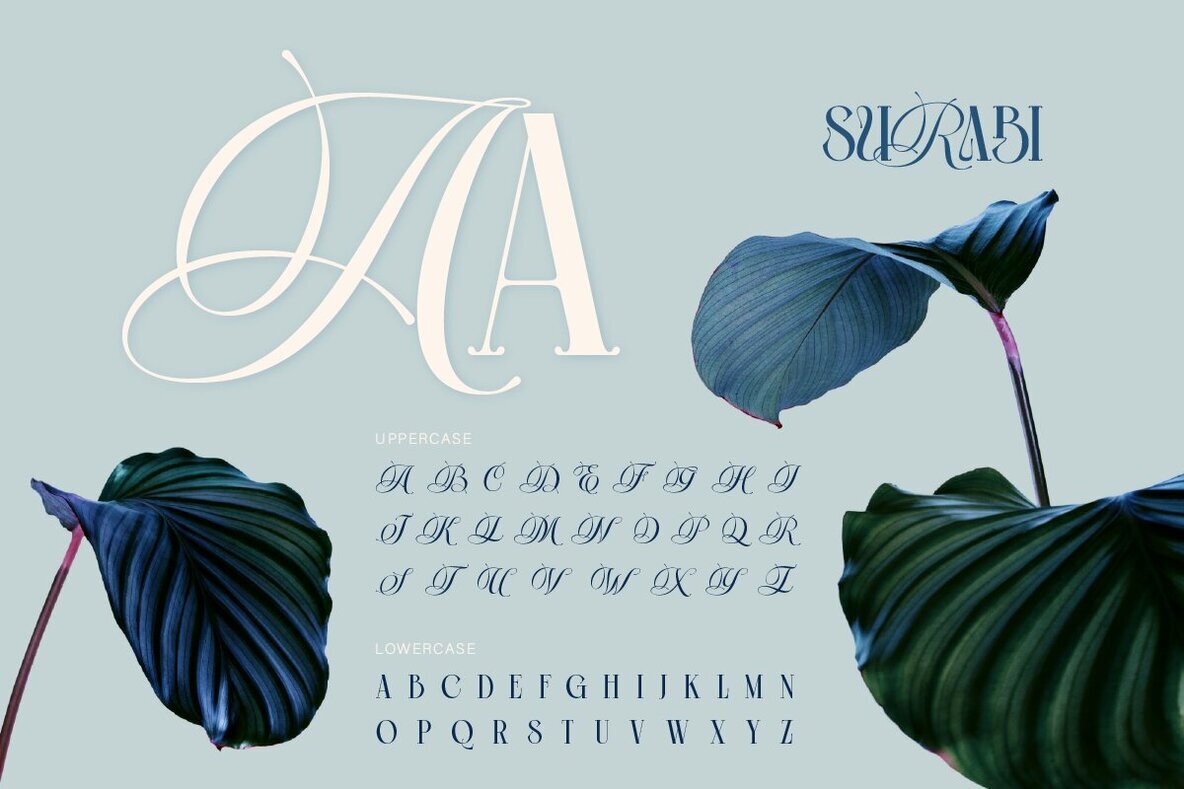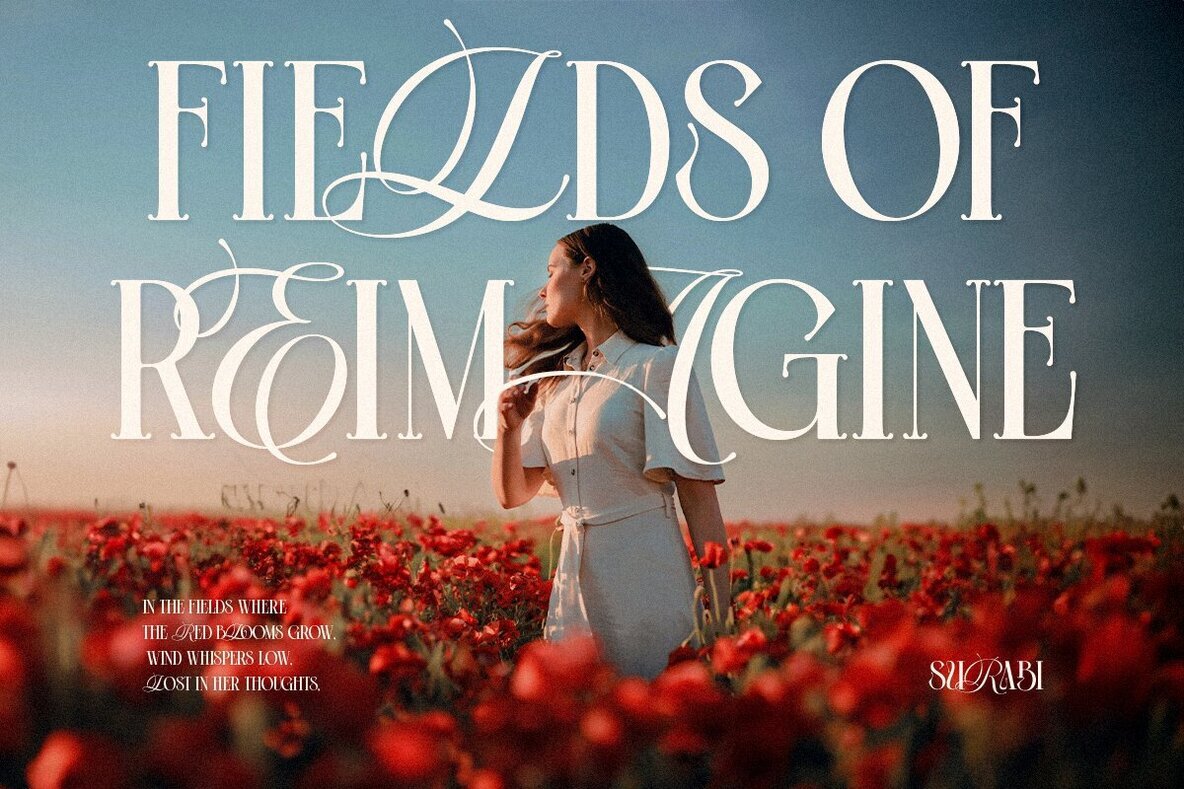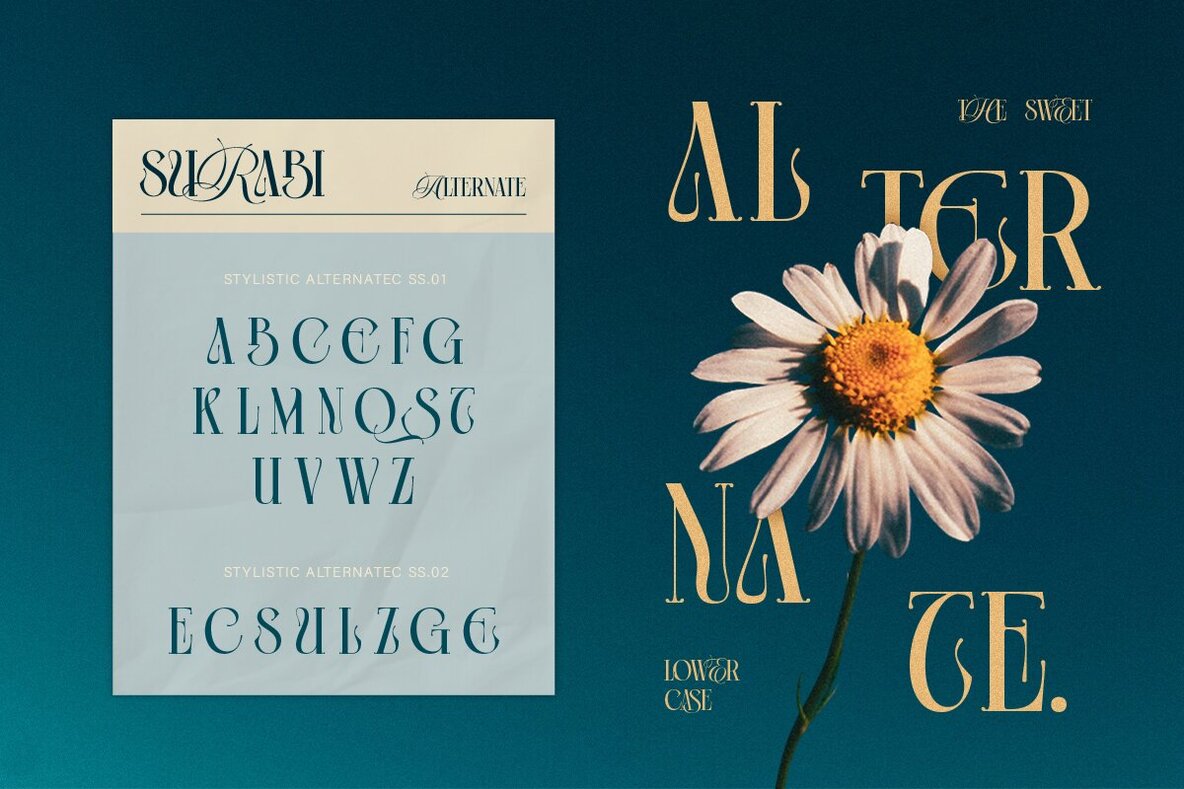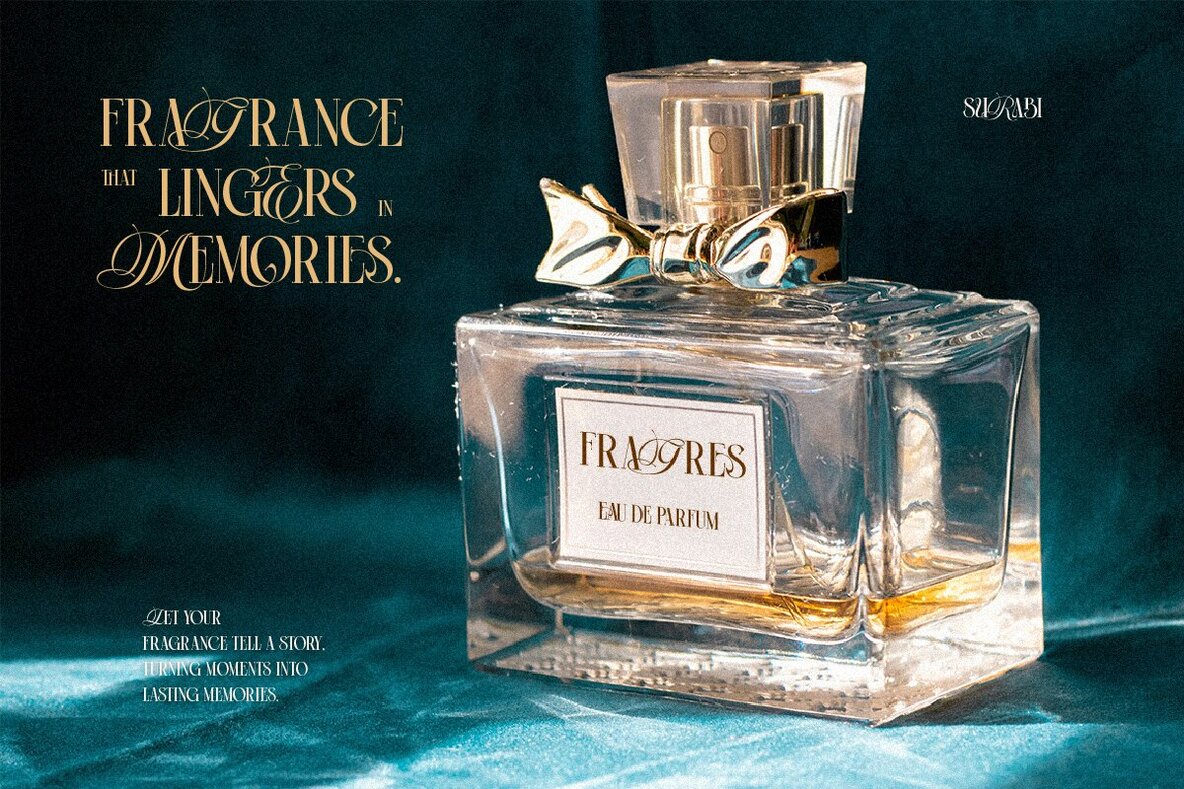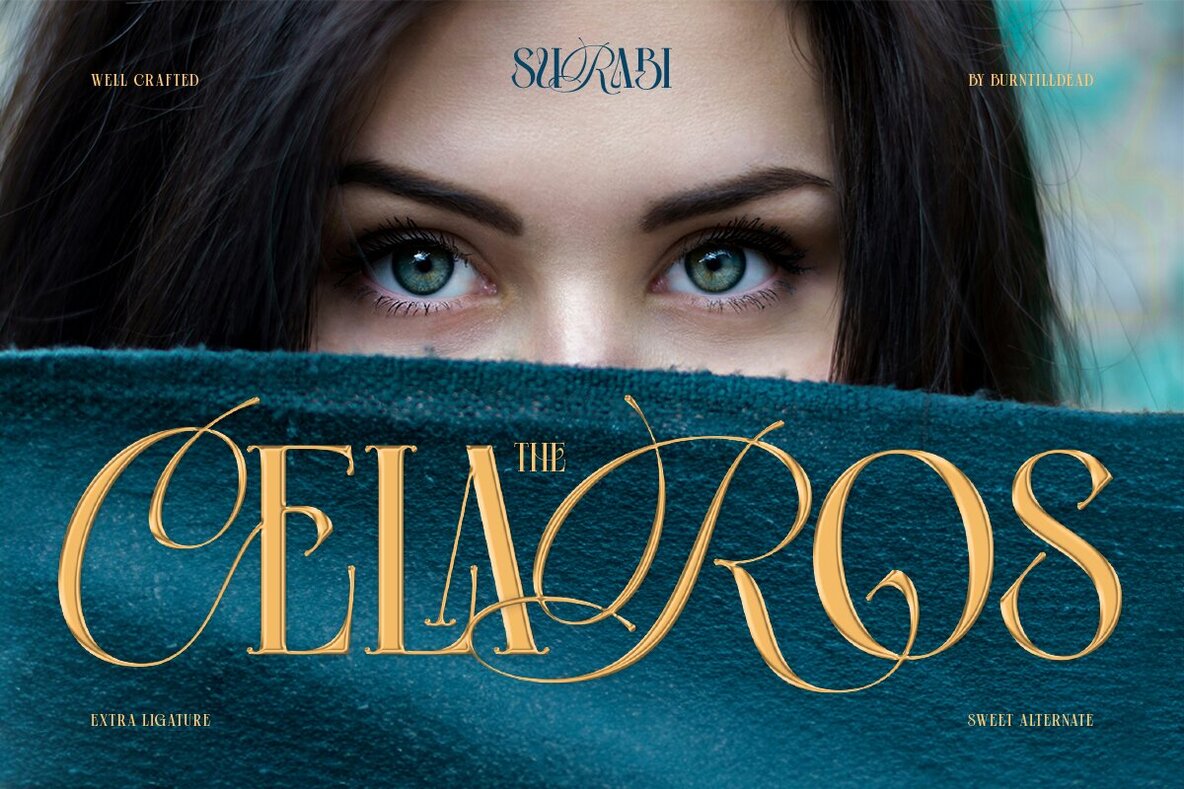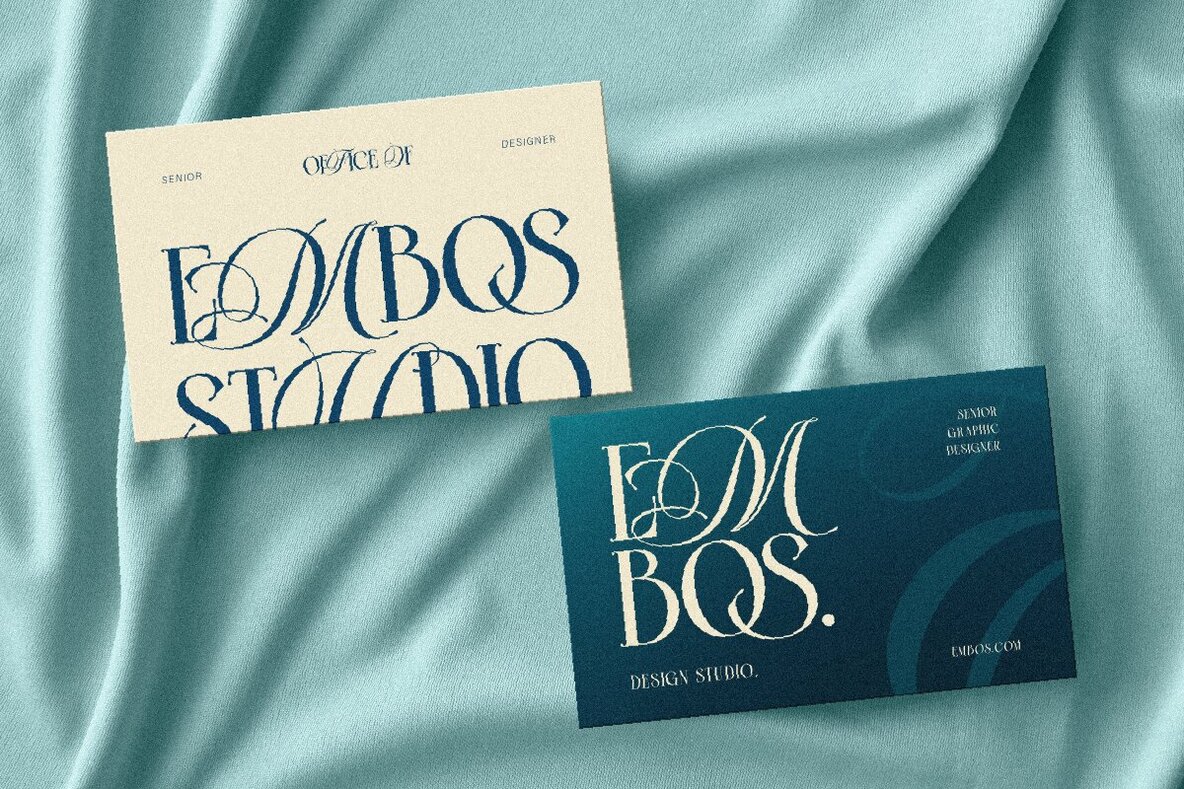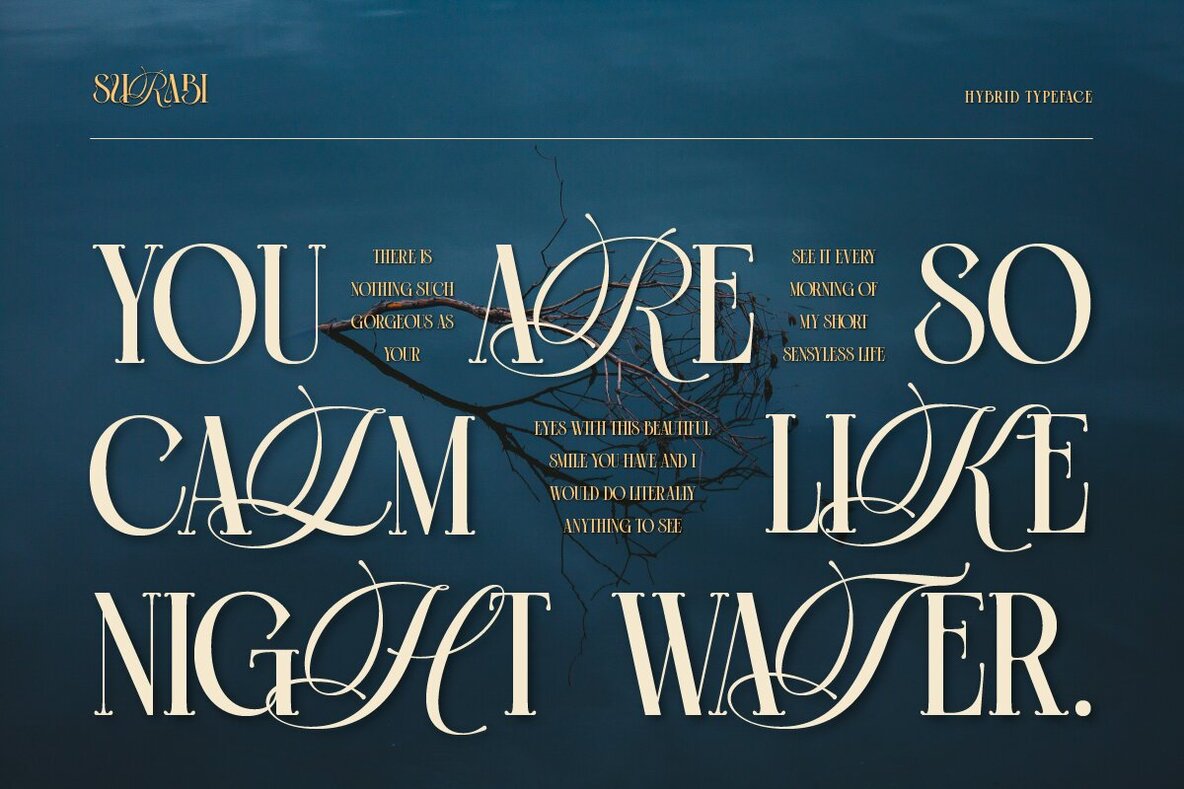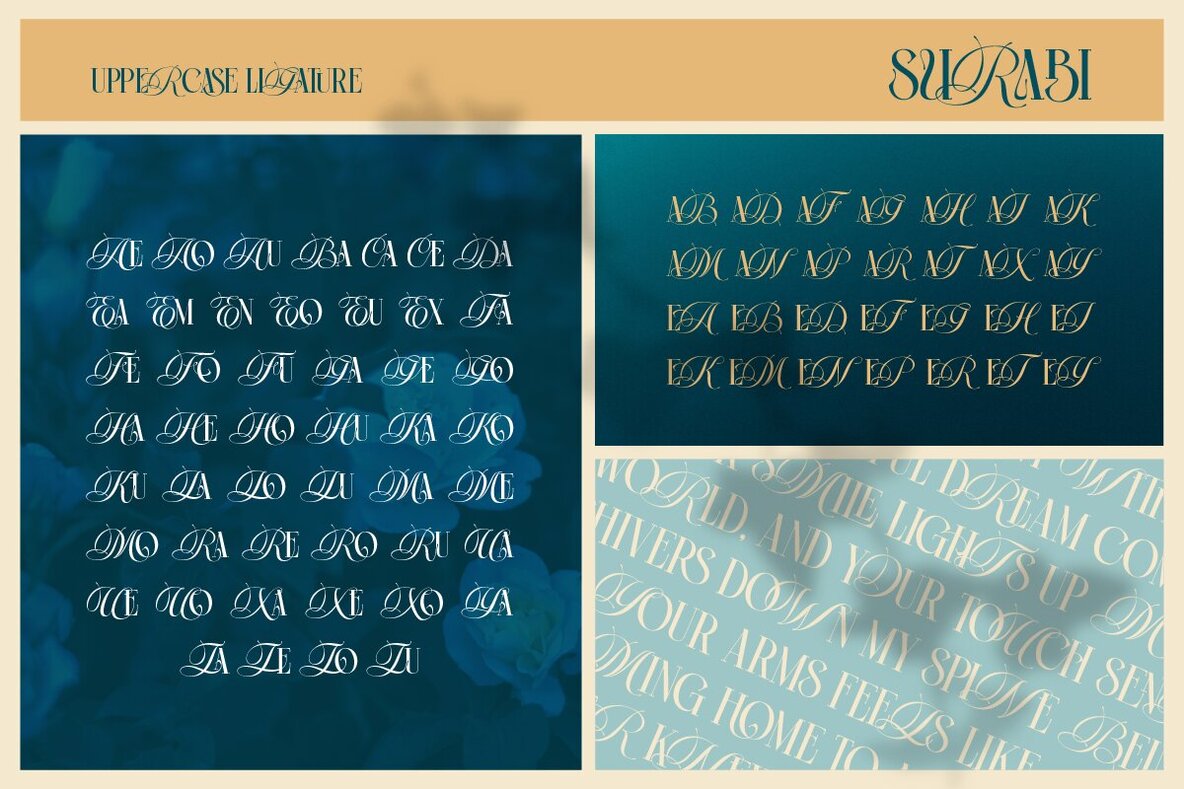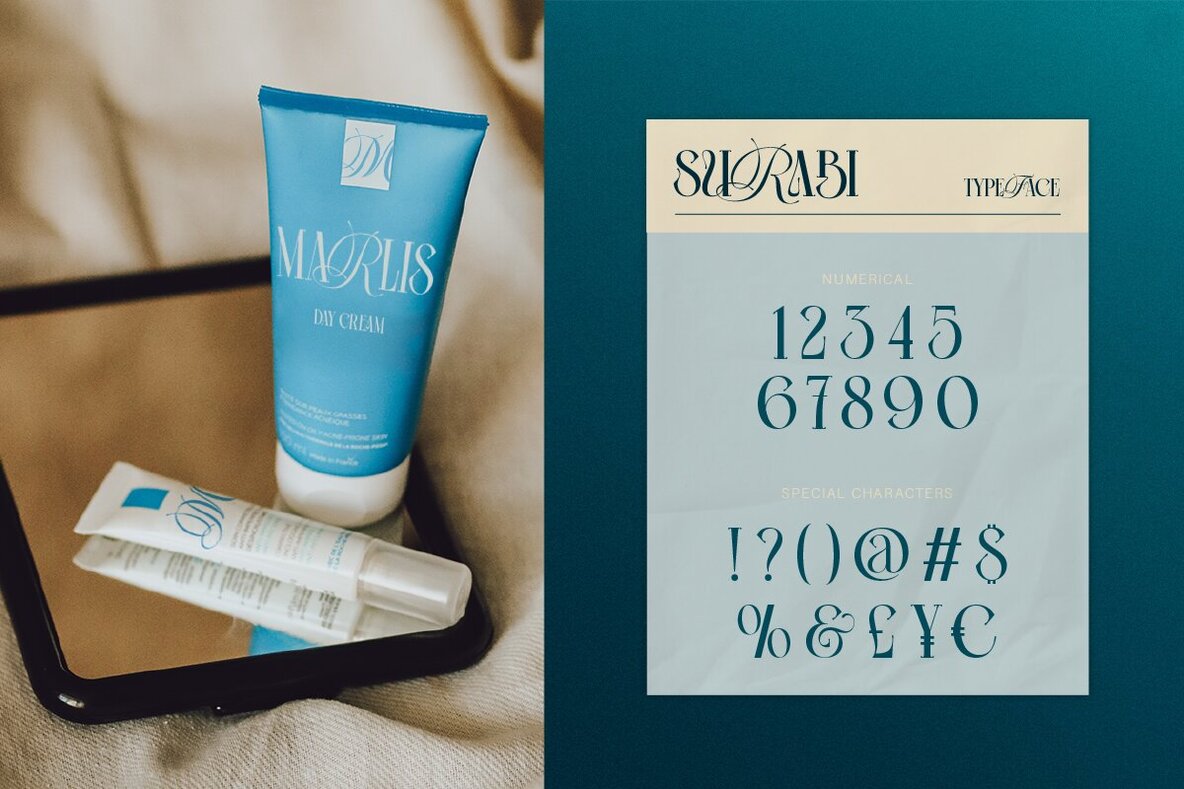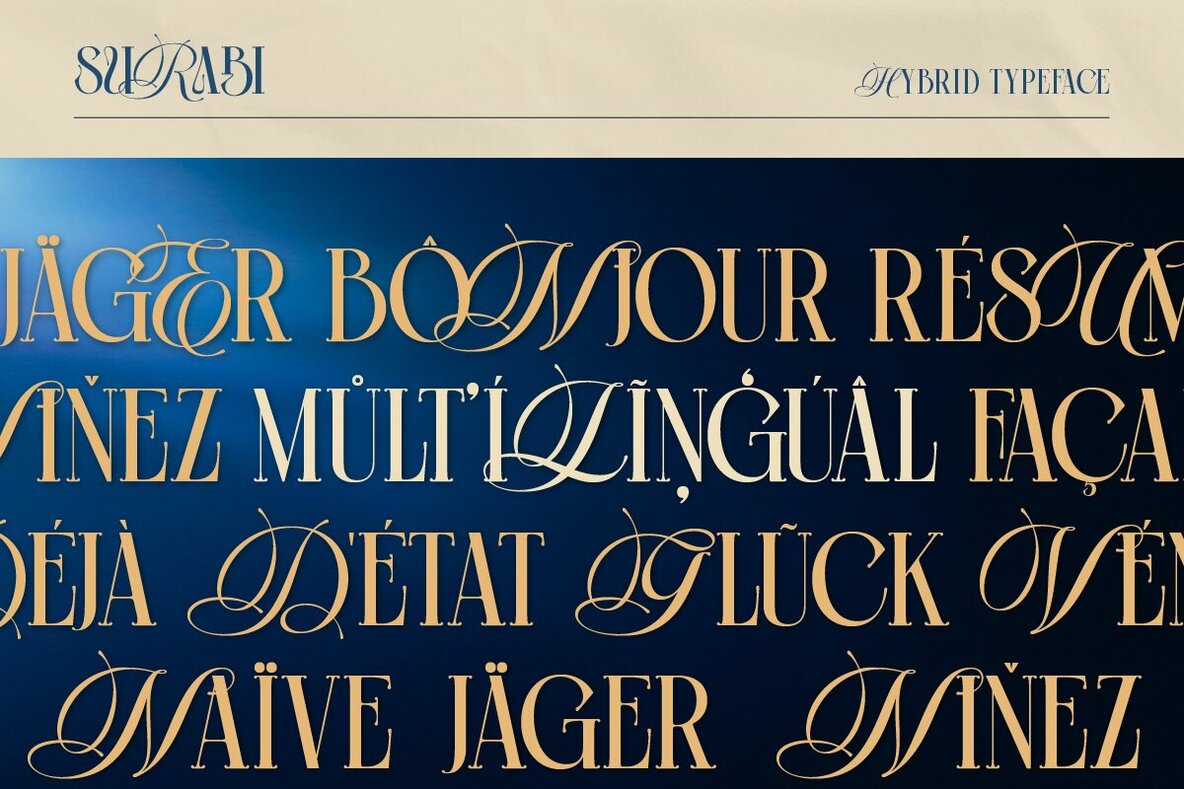
Surabi Font
Surabi Regular
Surabi is a hybrid typeface that masterfully combines the classic serif style with the elegance of script. This unique blend brings a distinctive charm and improved readability to various projects. The design includes extra ligatures that seamlessly connect characters, adding sophistication and fluidity to your text.
Ideal for branding, invitations, and editorial design, Surabi provides versatility and aesthetic appeal. Features include a complete A-Z set, numbers, punctuation, extra ligatures, alternates, and multilingual support. Enhance your designs with this finely crafted typeface that delivers a polished, professional look.